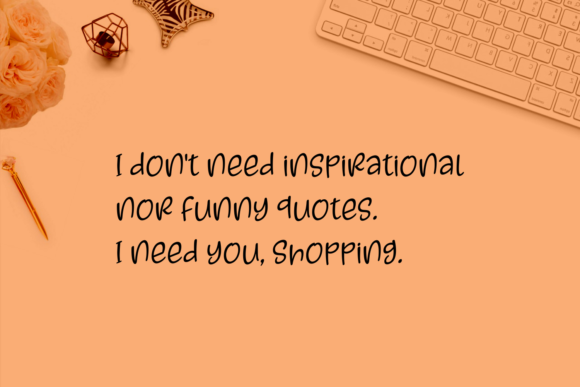
Kayskew October Eleven Font
About Kayskew October Eleven Font
The Kayskew October Eleven is the skew version of the ‘Kaylonick font’. It has a fun, modern style which can be used for various designing needs.